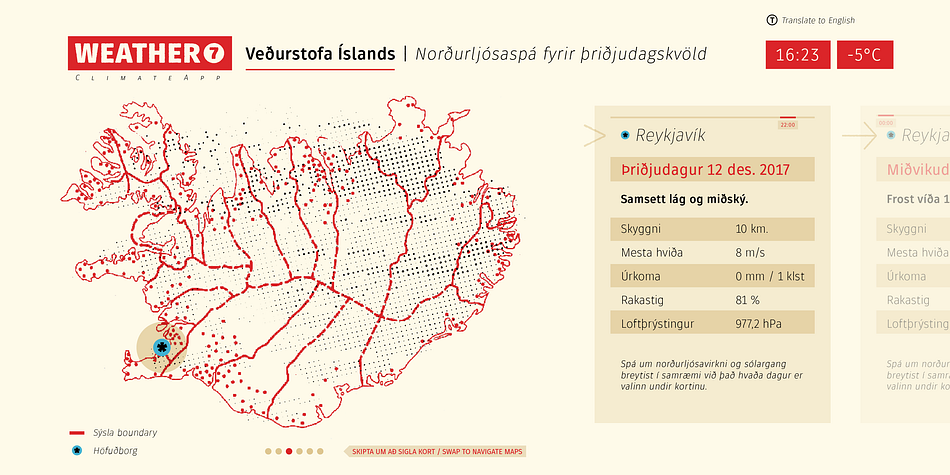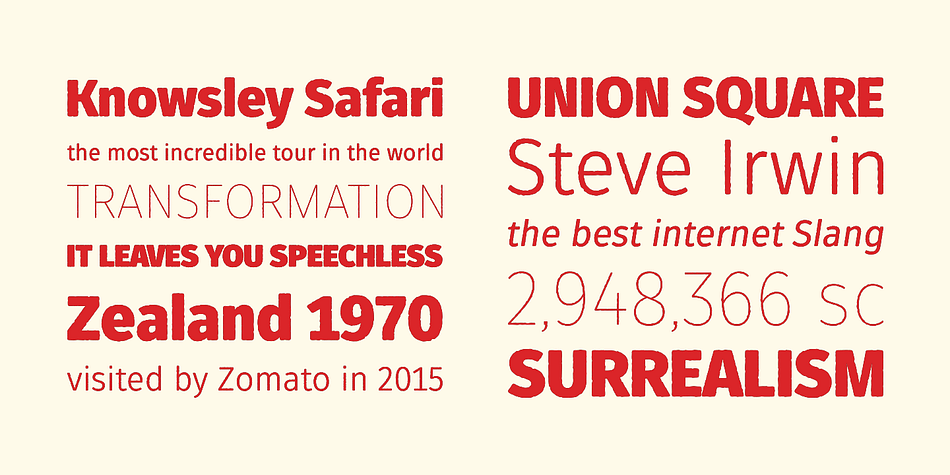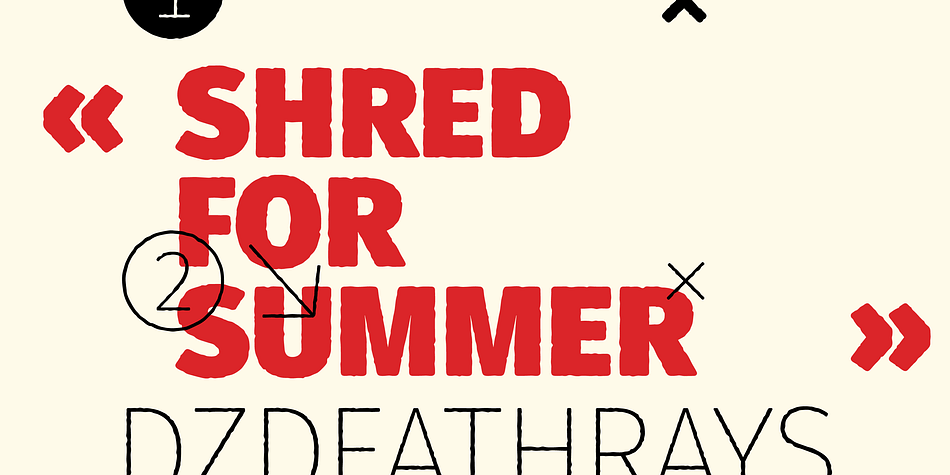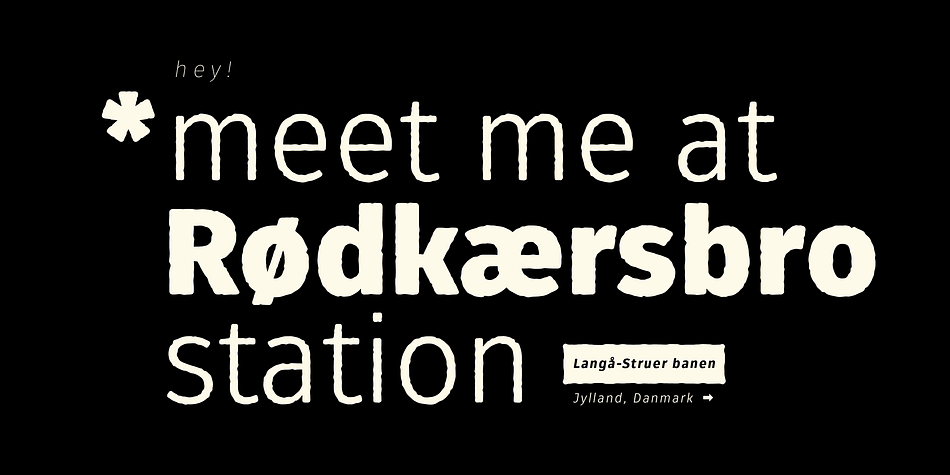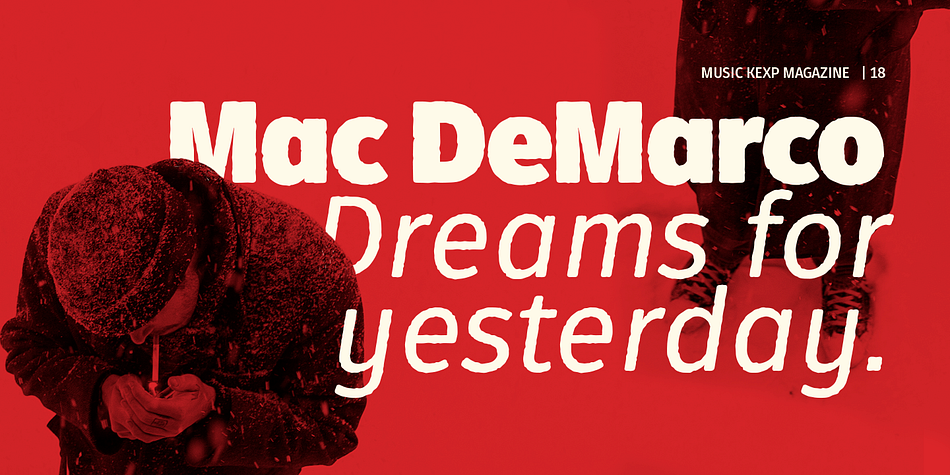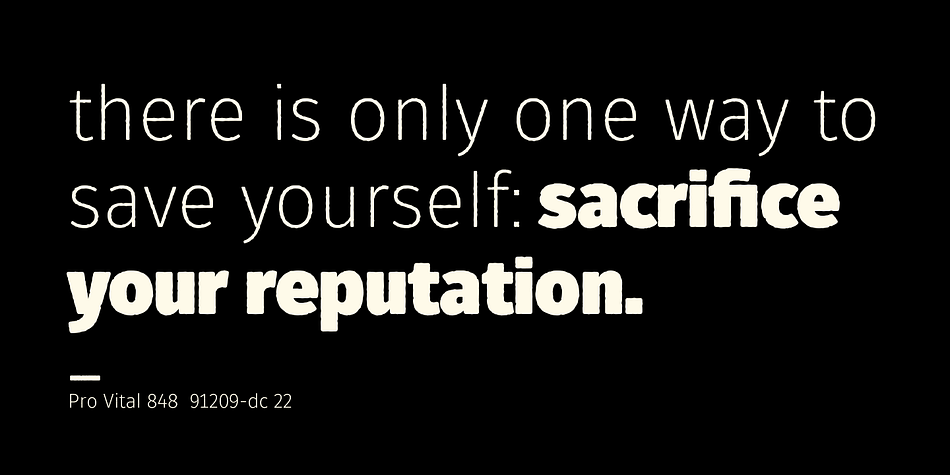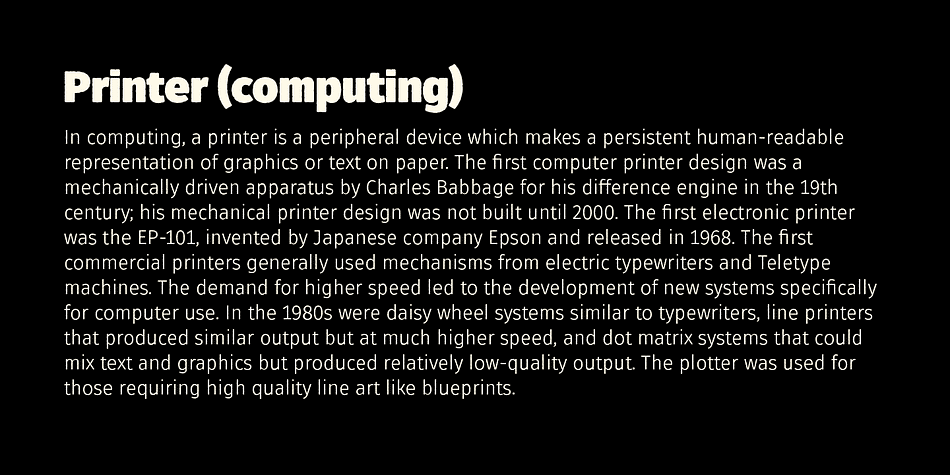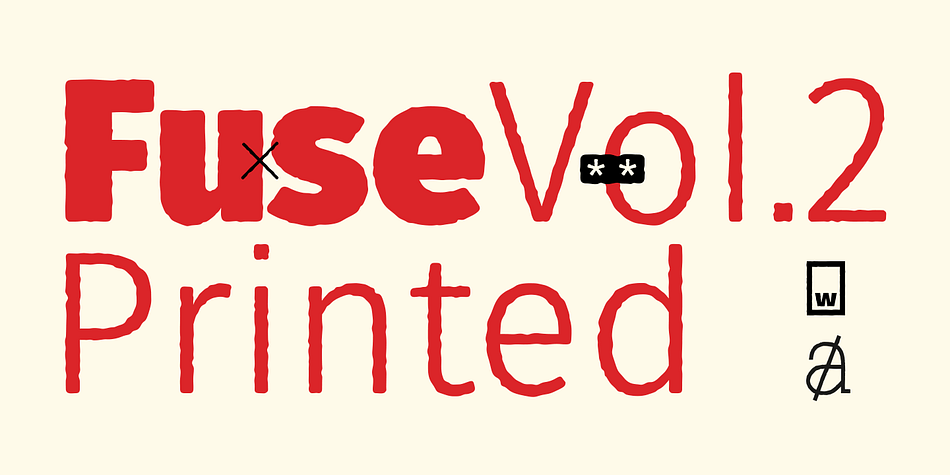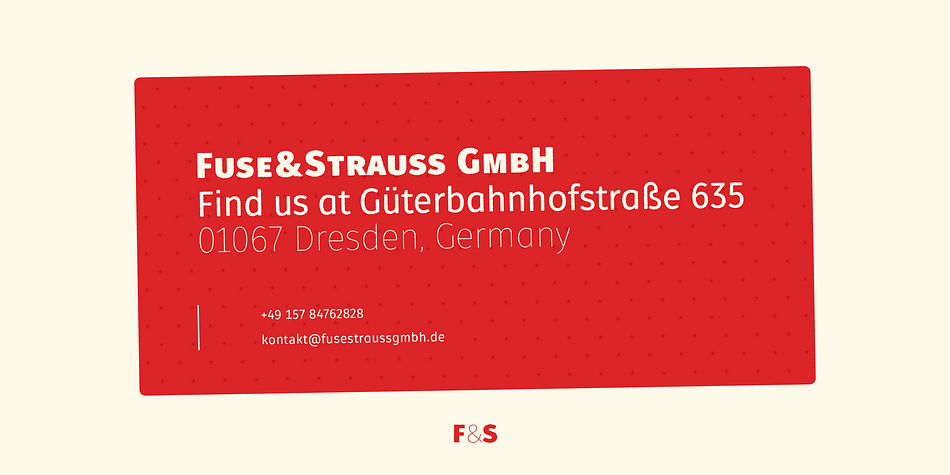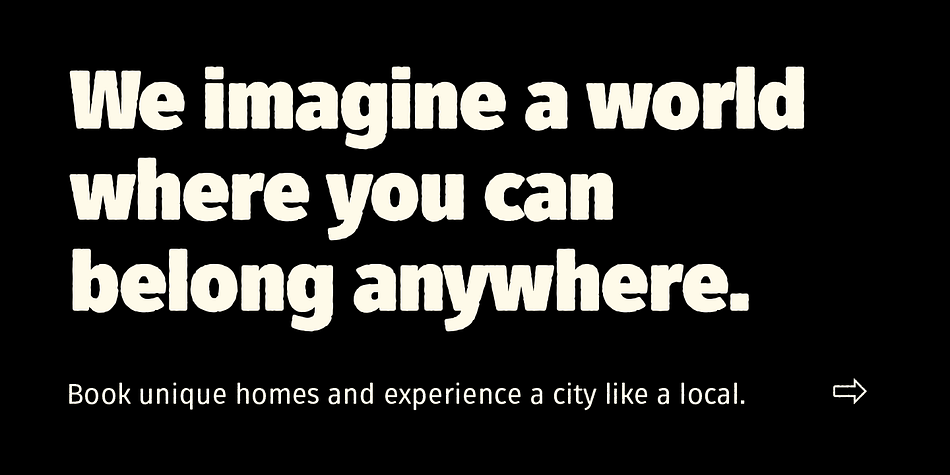
Designed by Julia Martinez Diana and Salvador Rodríguez, Fuse V.2 Printed is a display sans font family. This typeface has thirty-two styles and was published by W Foundry.
“Fuse Vol 2 Printed is an extension to the popular Fuse & Fuse Vol 2 type family. In this opportunity, for the adaptation of this typeface W Foundry worked alongside Julia Martinez Diana (Antipixel), to create a balanced and consistent texture throughout the whole family.
All the typeface’s textures have been meticulously outlined to give a natural look maintaining the soft and round edges, making Fuse Vol 2 Printed more easy-going and spontaneous.
It is perfect for large display usage due to the professional shapes of its outlines, which were hand-crafted glyph by glyph. Each character has its own printed style, which is not repeated in the accented characters, neither in other weights of this family.
Designed with a powerful OpenType features in mind. Each weight includes alternate characters, ligatures, fractions, special numbers, arrows, extended language support, small caps and many more.. Perfectly suited for graphic design and any display / text use. The 32 fonts are part of the larger Fuse super family.”